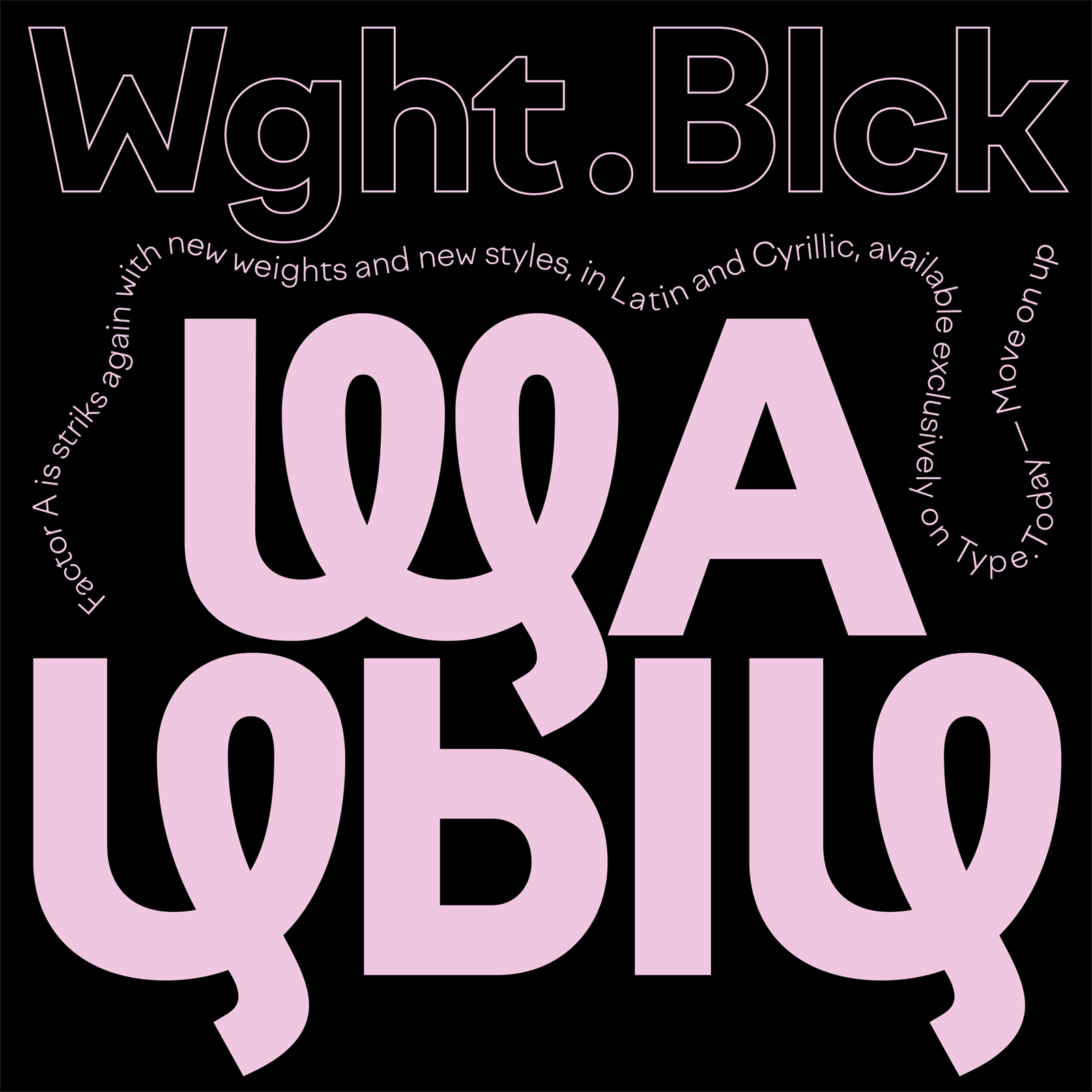
Following the arrival of Extra Bold and Black, Bold style gained some weight, too. Factor A’s six italics plus one variable, just like its Roman styles, are equipped with alternates, built upon the idea of handwriting loop.